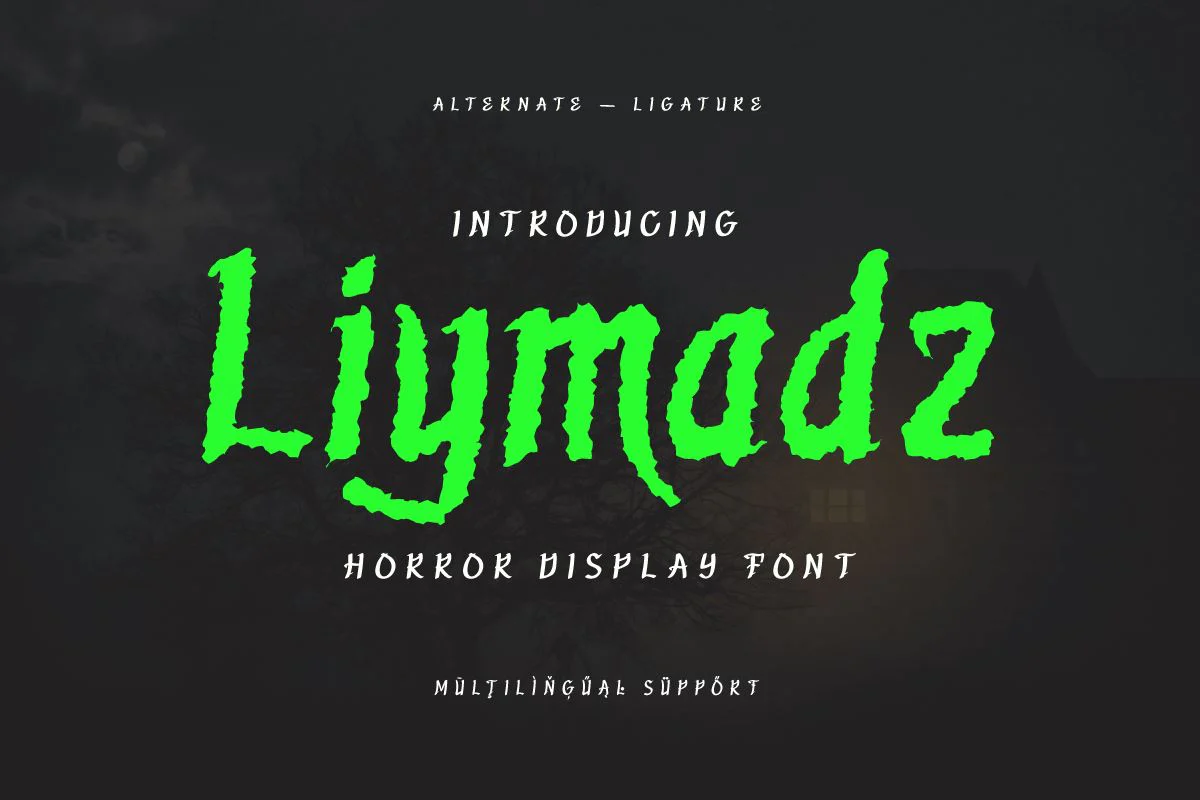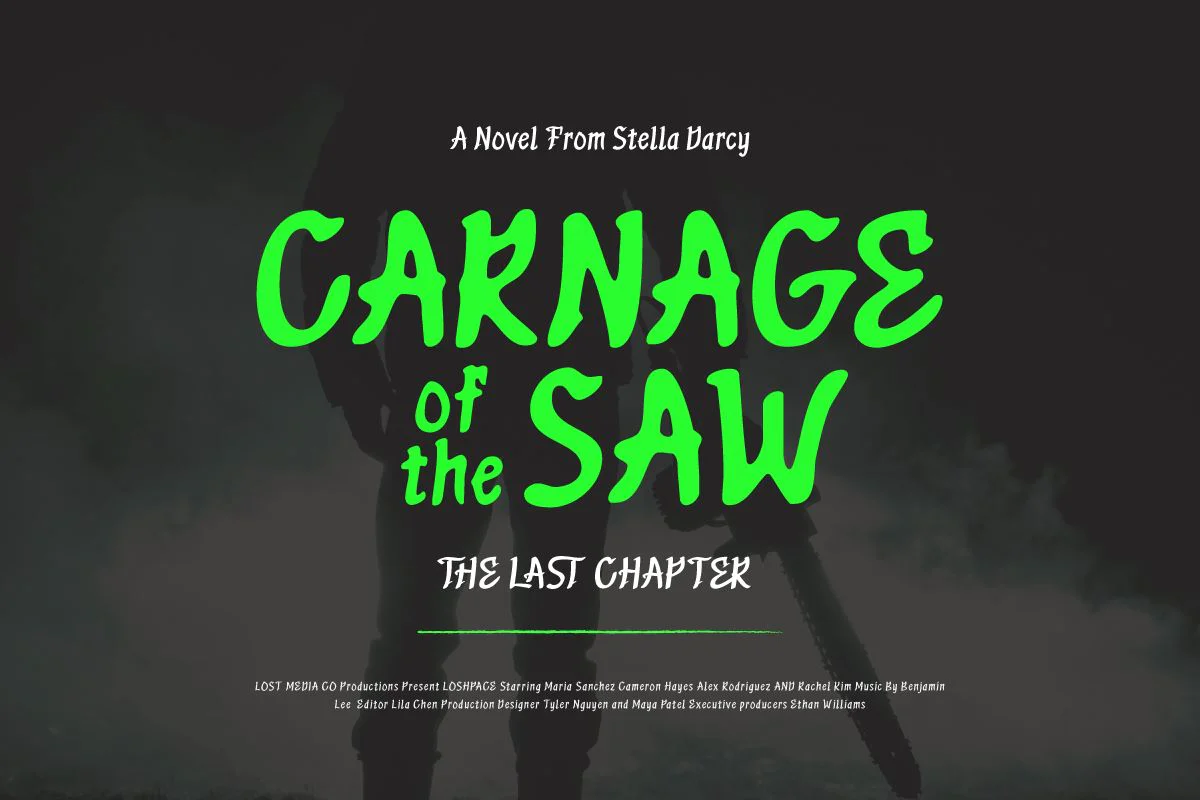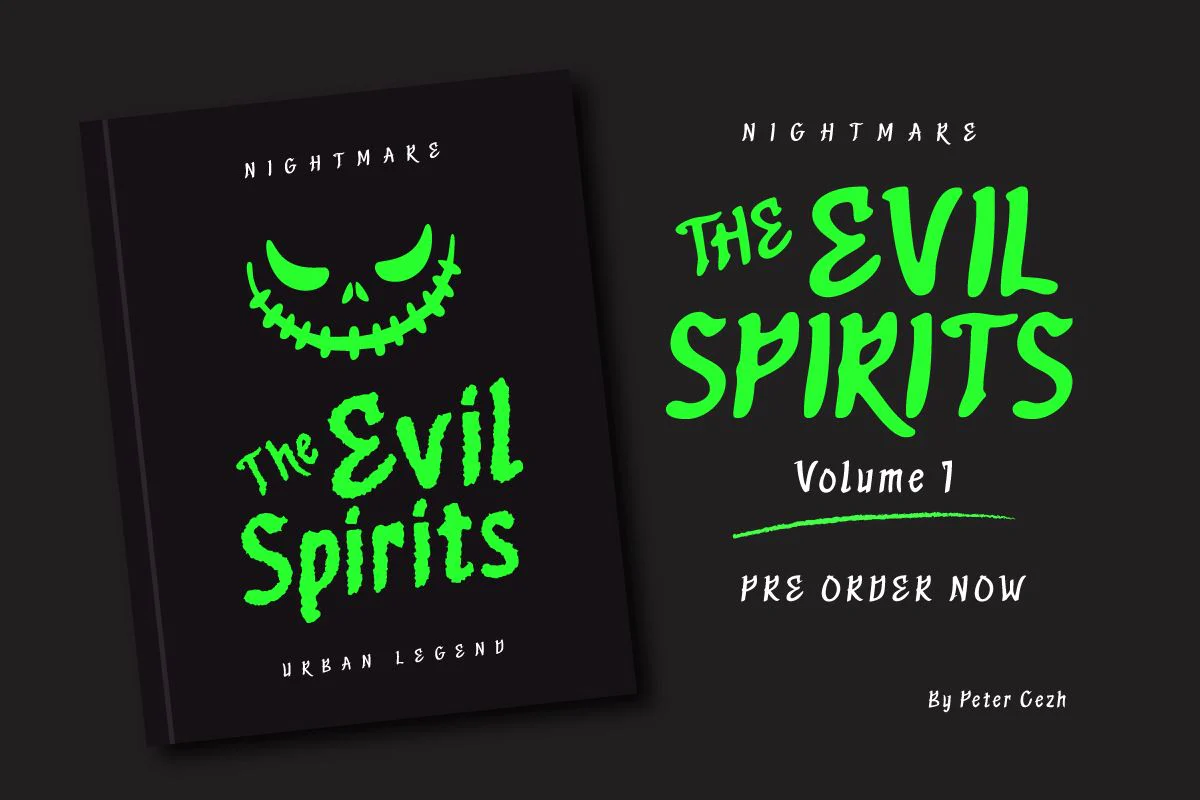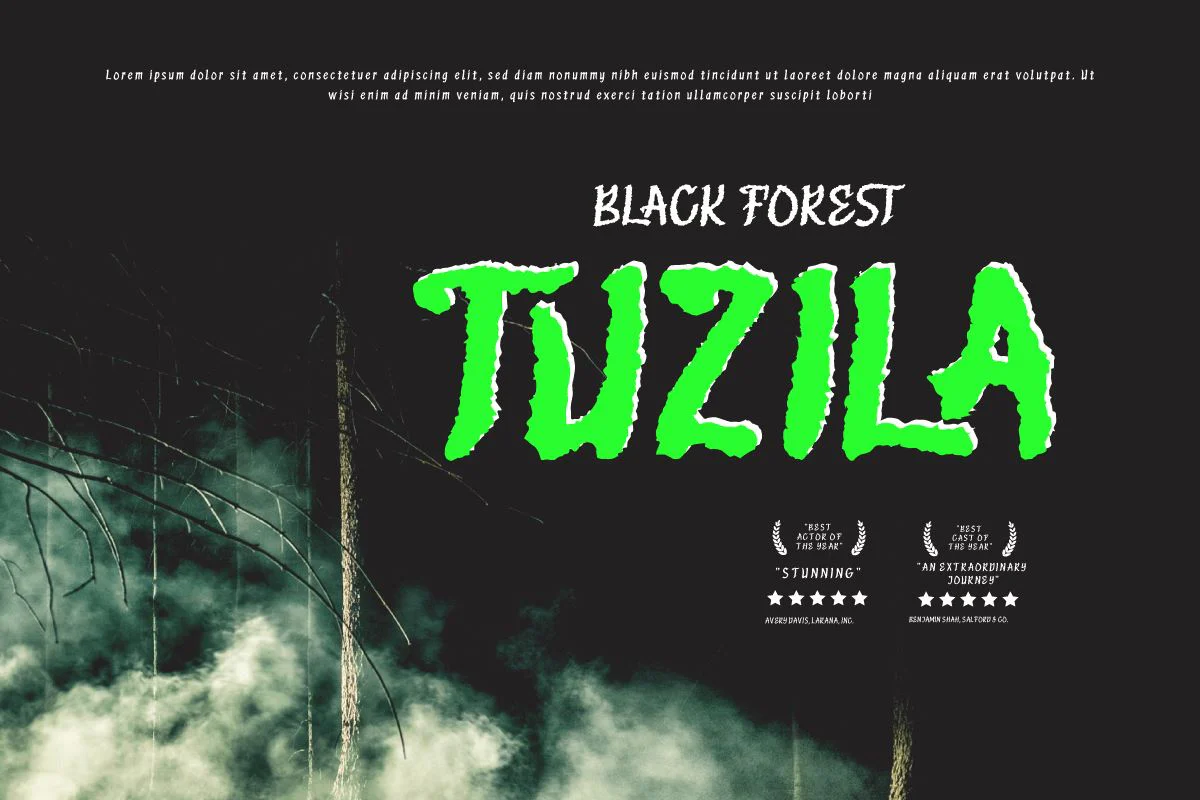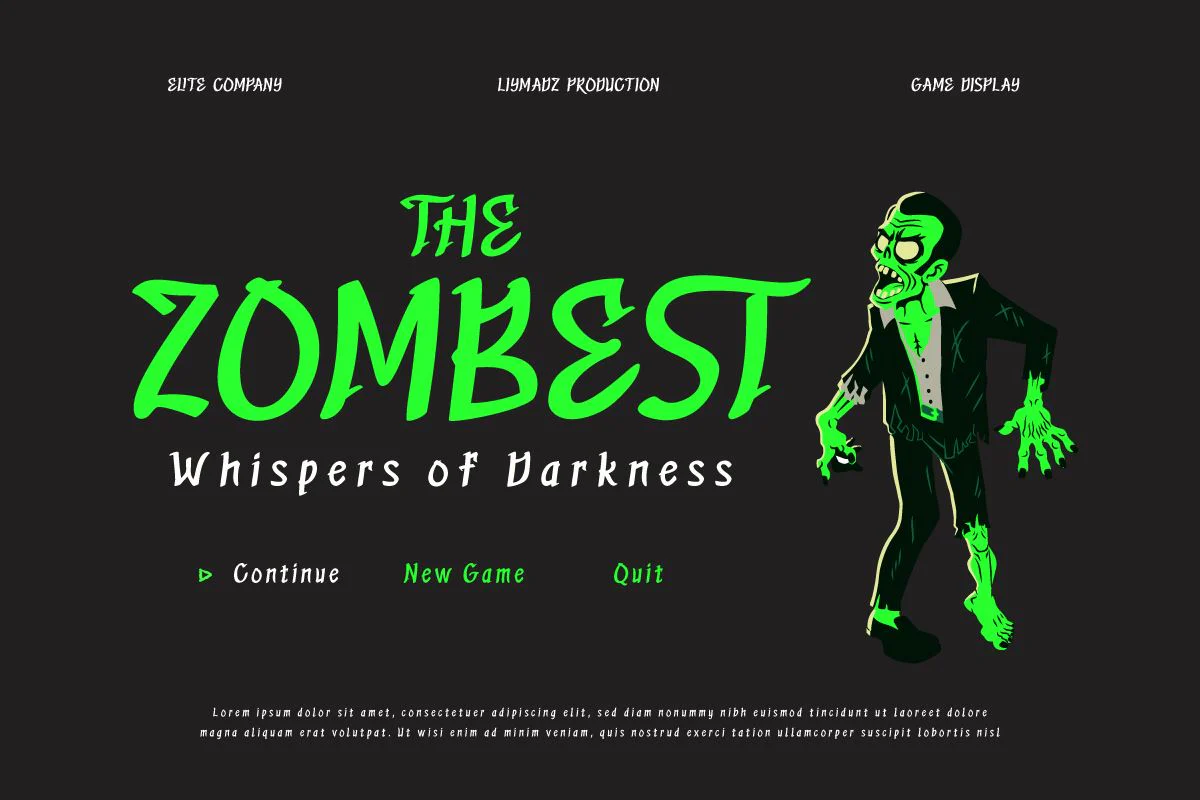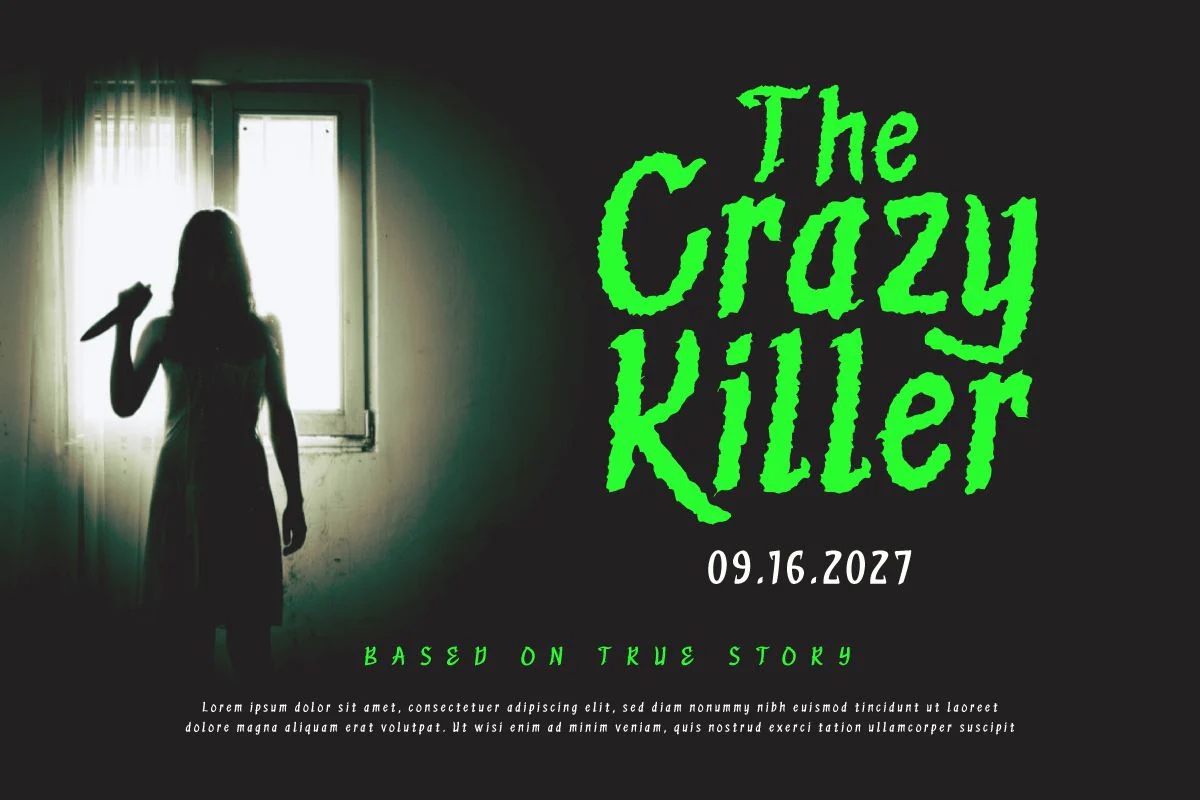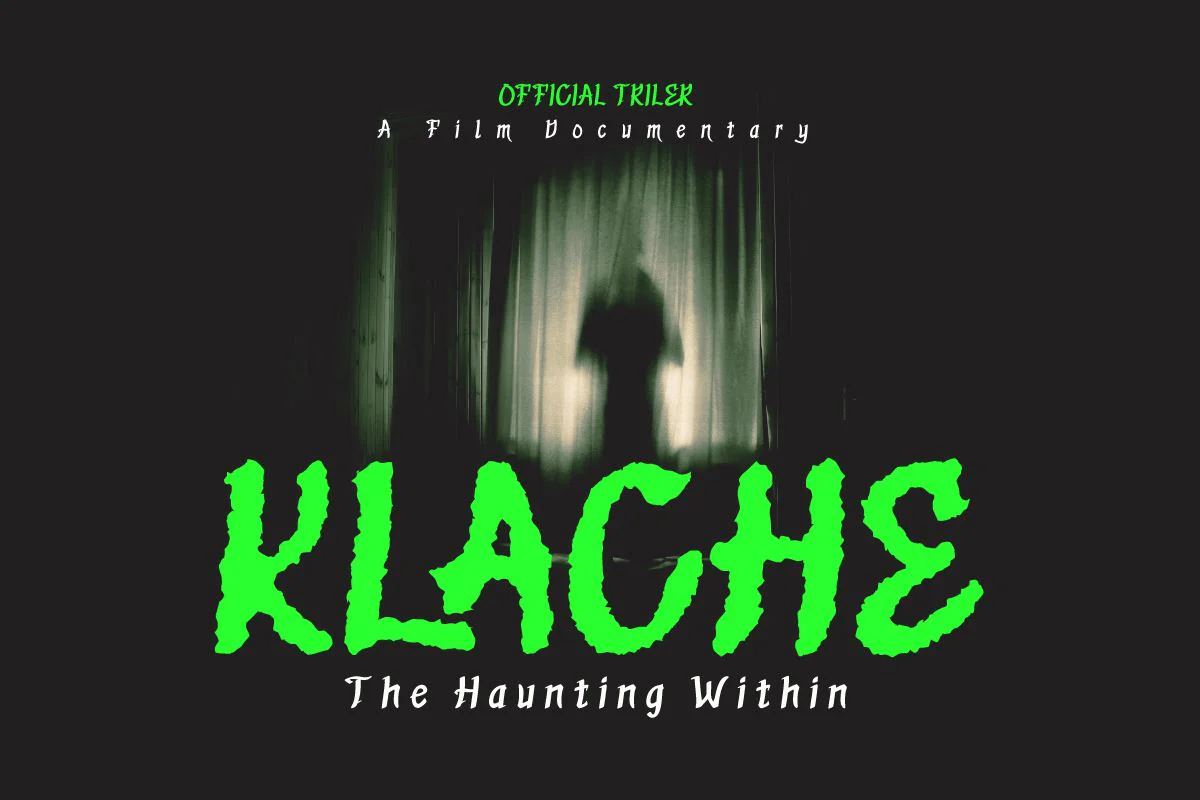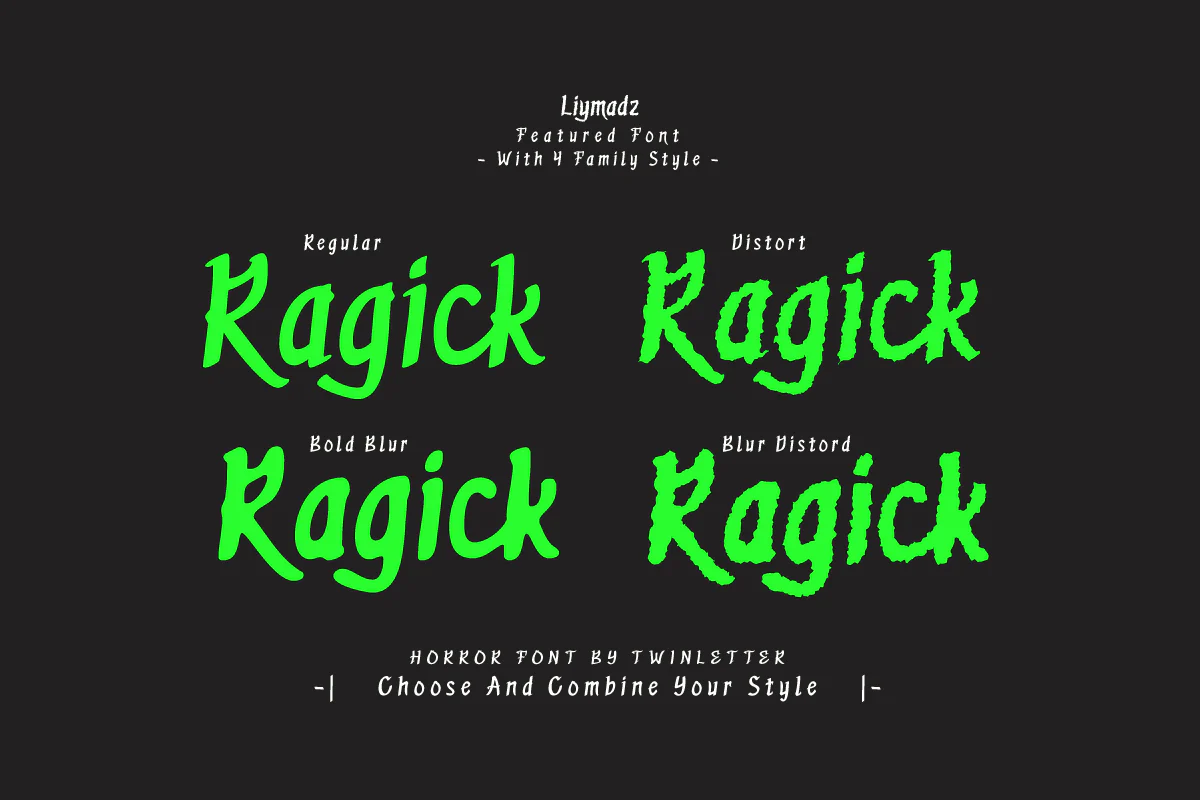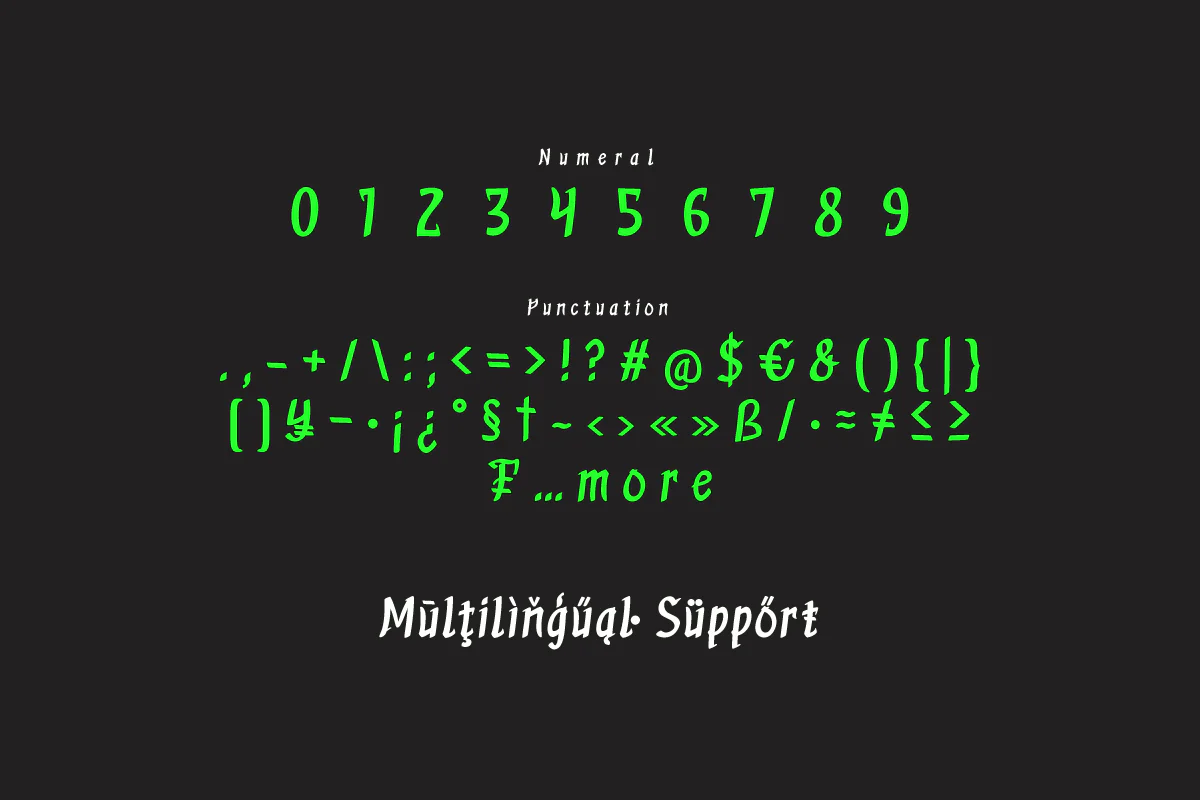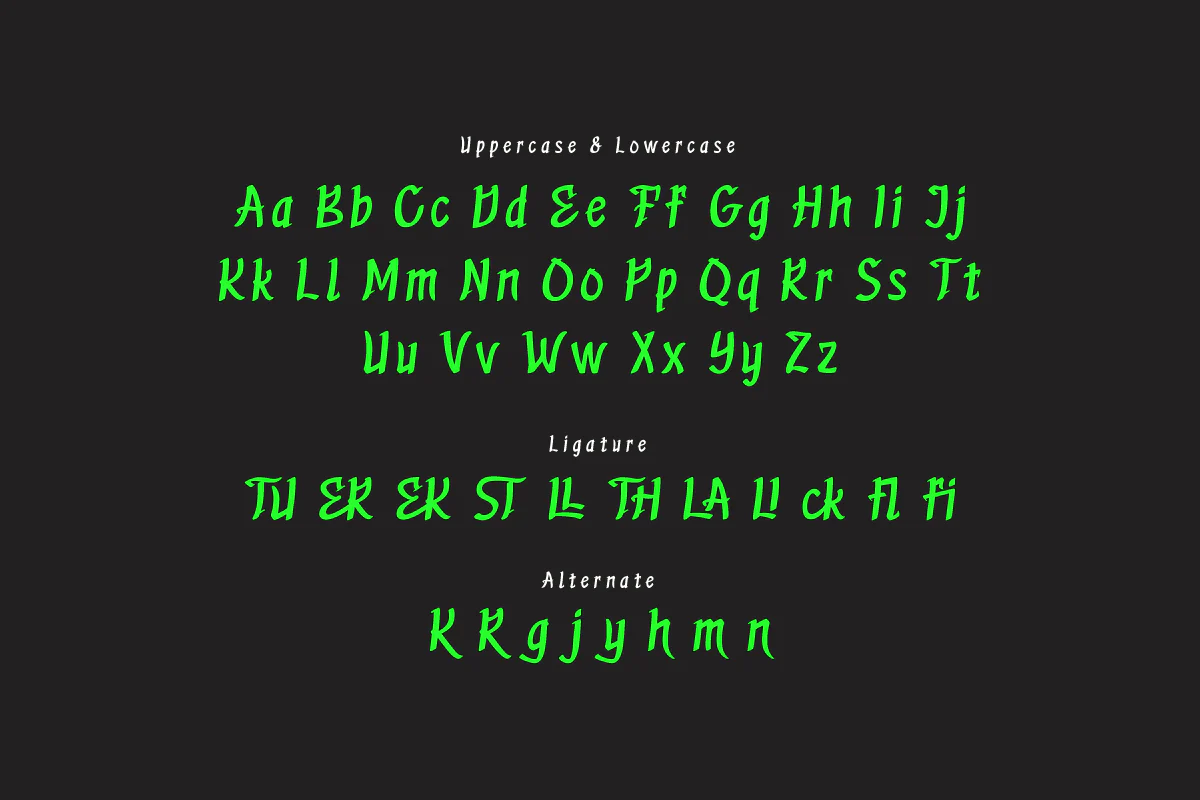
Liymadz - Horror Display Font
Dive into the depths of darkness with Liymadz, a horror display font that sends shivers down your spine. Each letter drips with sinister allure, invoking a sense of dread and mystery. Perfect for Halloween designs, movie posters, or eerie-themed projects, Liymadz brings a spine-chilling atmosphere to your creations, leaving a lasting impression on anyone who dares to gaze upon them.